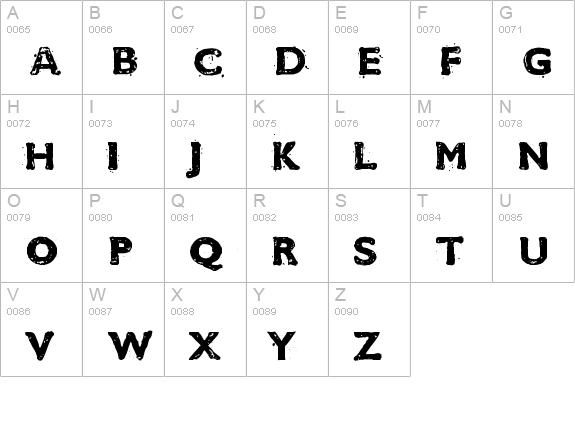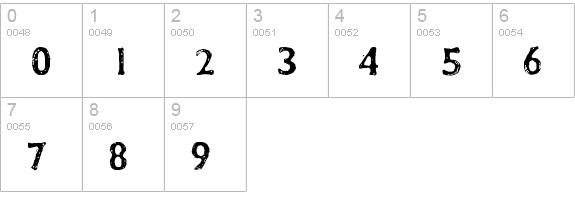
CMDestroyTwo Font Details
CMDestroyTwo font is a striking display typeface that exudes a sense of power and modernity. With its bold, angular letterforms and unique design elements, this font is perfect for making a statement in your creative projects. Whether you're designing posters, logos, or social media graphics, CMDestroyTwo font will demand attention and leave a lasting impression. But the best part? CMDestroyTwo font is completely free to download at FontsMarket.com. Yes, you read that right - you can add this dynamic font to your collection without spending a dime. So why wait? Elevate your designs with CMDestroyTwo font today and let your creativity shine.